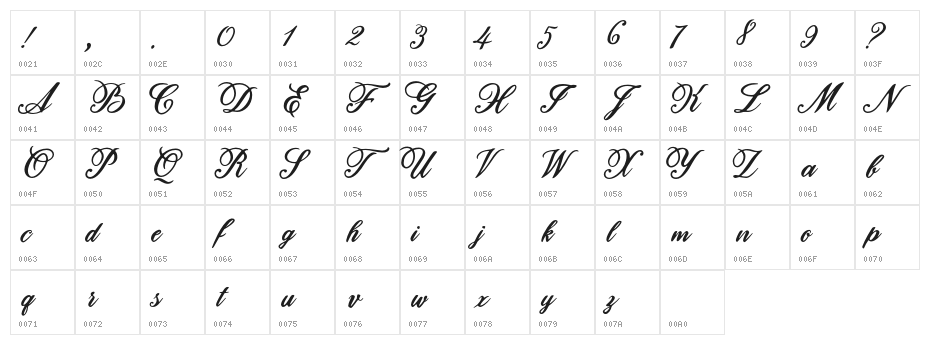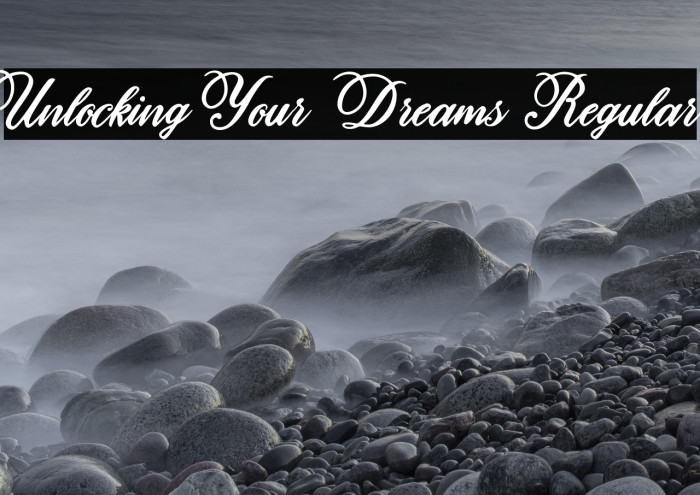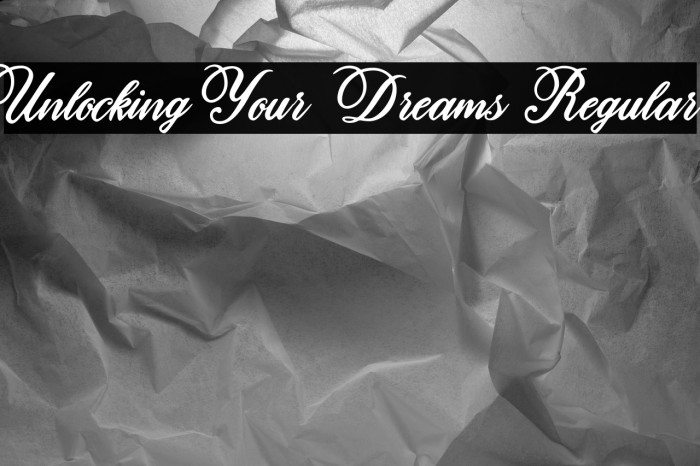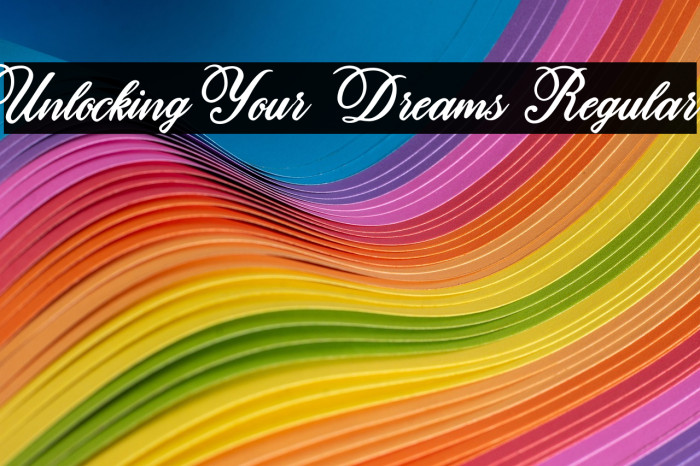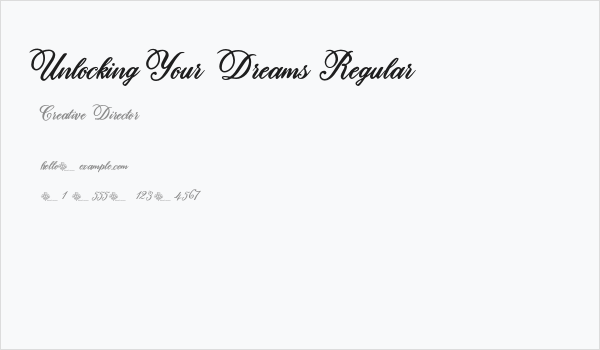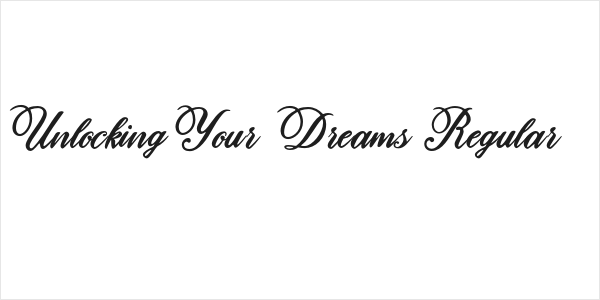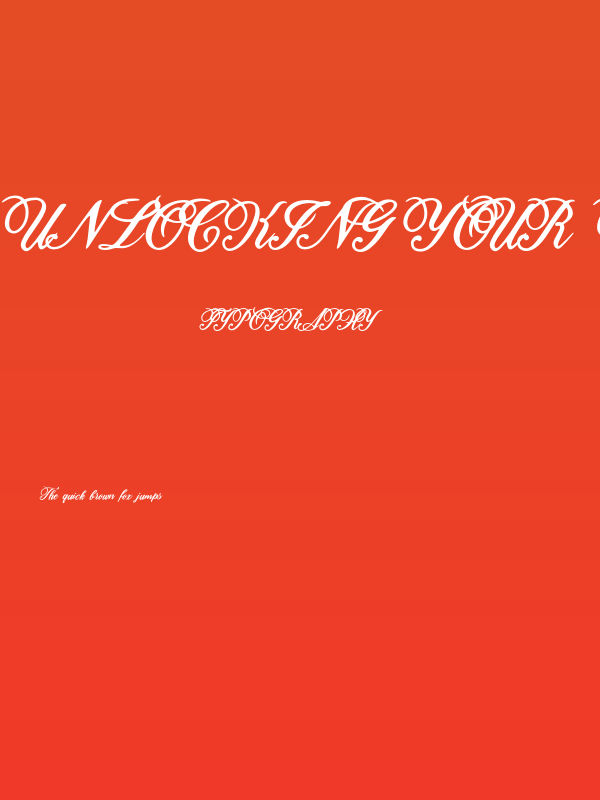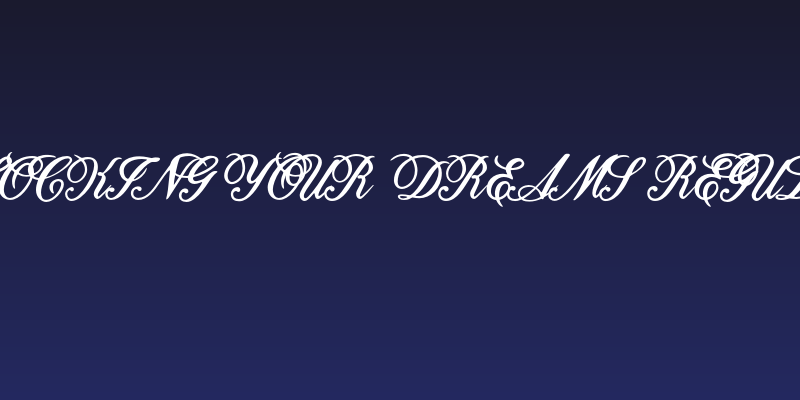
Unlocking Your Dreams Regular Font
Unlocking Your Dreams Regular Description
This font features an elegant and flowing script style, characterized by its cursive, interconnected letterforms. The uppercase letters are particularly ornate, with elaborate swashes and loops that give a sense of sophistication and grace. The lowercase letters maintain a consistent flow, enhancing readability while preserving the decorative nature. The numerals are styled to match the script, with gentle curves and a slight slant that complements the overall aesthetic. Special characters are designed with similar attention to detail, ensuring a cohesive look across all glyphs.
| Proposed Projects | Ideal for wedding invitations, luxury branding, greeting cards, and elegant logo designs. |